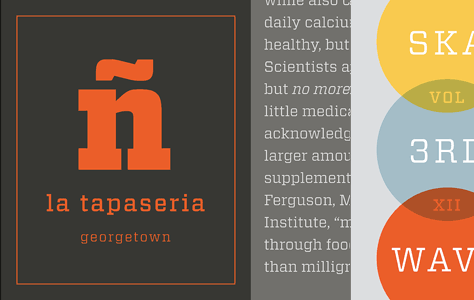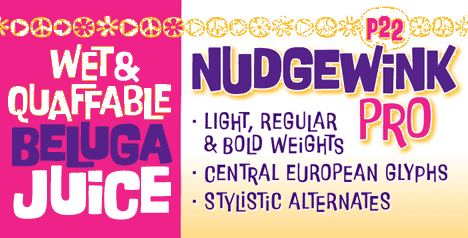
A Bevy of New Typefaces
Whether you need a font that's suave and stylish, hip and happening, or simply mind-bending, these new releases are worth a look.
Emigre has unveiled Jonathan Barnbrook's Priori Acute, another member in his Priori family. Each Priori Acute character creates a multidimensional illusion that M.C. Escher would be proud to claim as his own. The font also includes ornamental elements designed to be combined into patterns. The OpenType version of the font sells for $50.
The Hoefler & Frere-Jones foundry have introduced Vitesse, which they call a "slab serif for the 21st century... confident and stylish in any situation." Its character set covers more than 100 world languages, including all of Central Europe. The 12-style set costs $199.
Visually, P22's Nudgewink Pro harkens back to the 1960s. The Pro version of this OpenType font includes discretionary ligatures, alternates, and ornaments. Until January 31, 2010, you can buy the Nudgewink Pro Set for $49.95 (regularly $69.95) or the Basic Set for $29.95 (regularly $39.95).